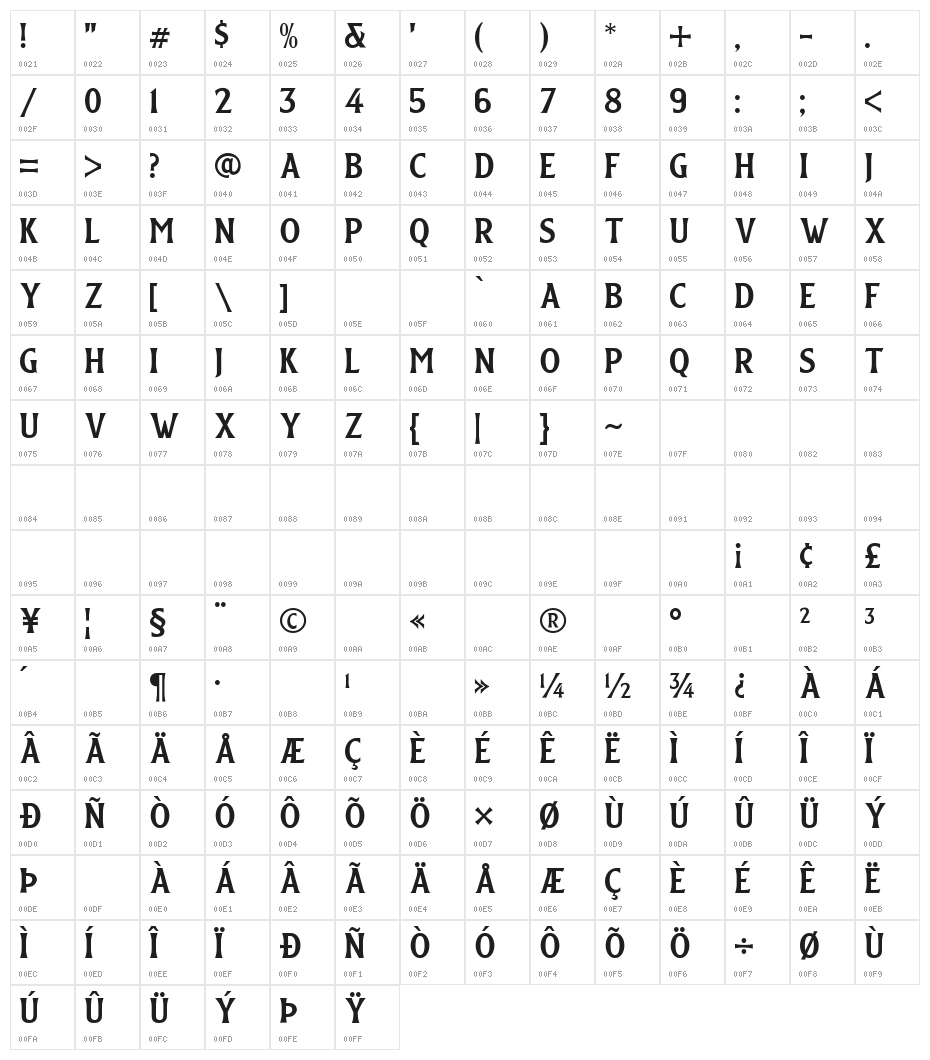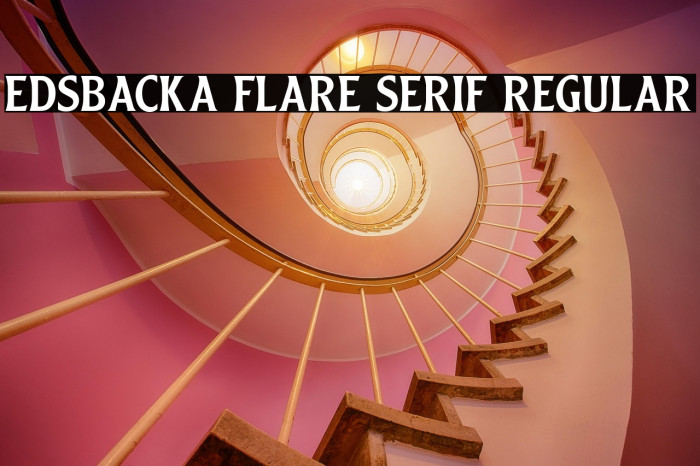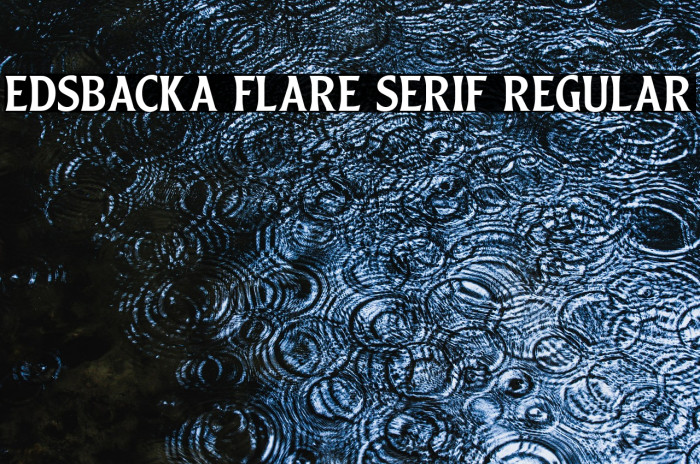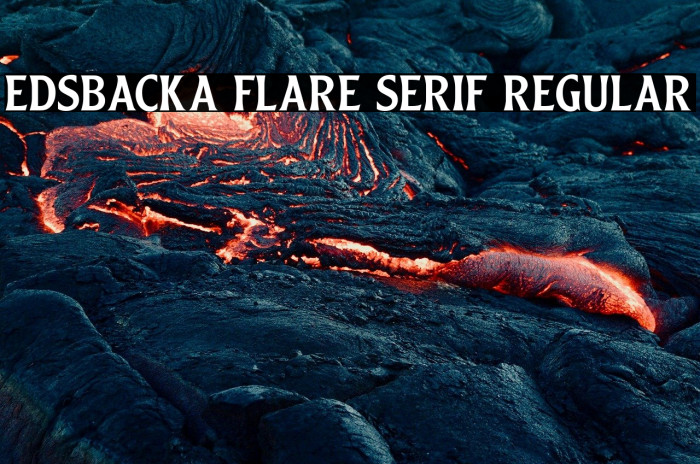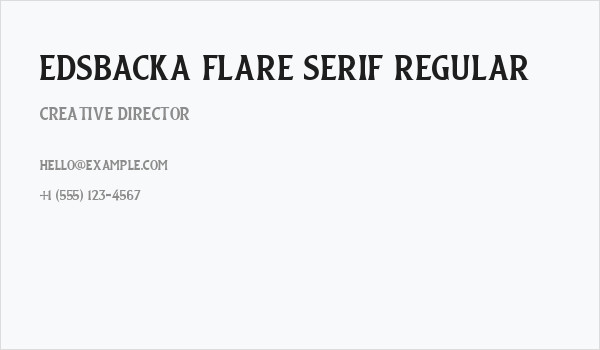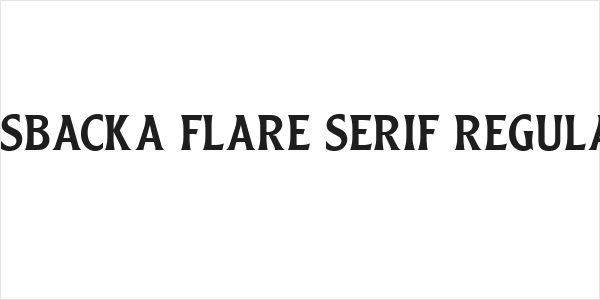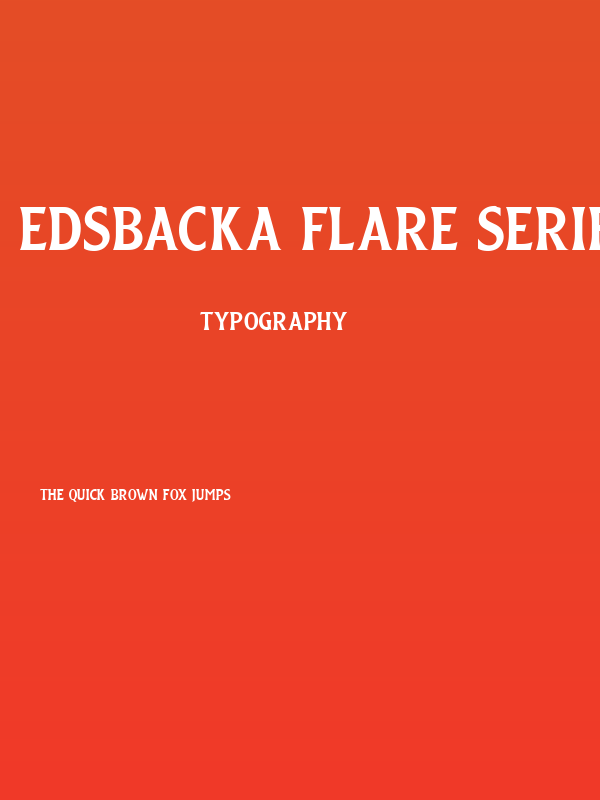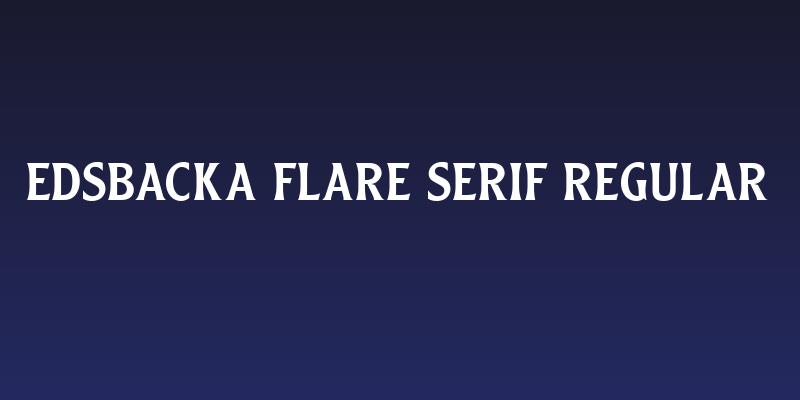
Edsbacka Flare Serif Regular Font
Edsbacka Flare Serif Regular Description
This font features a distinctive flare serif style, characterized by its elegant and slightly curved serifs that add a touch of sophistication. The uppercase letters are bold and commanding, while the lowercase letters maintain a consistent style that complements the overall design. The numerals are clear and well-proportioned, making them easy to read. Special characters are thoughtfully designed to match the aesthetic of the alphabet, ensuring a cohesive look across all text. This font's unique style makes it suitable for a variety of creative applications.